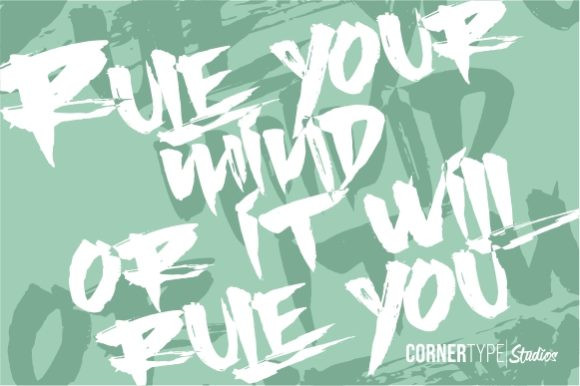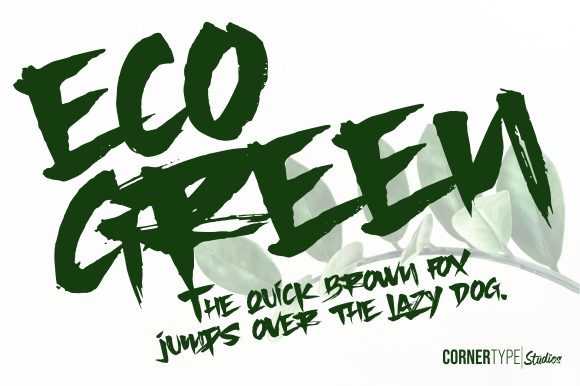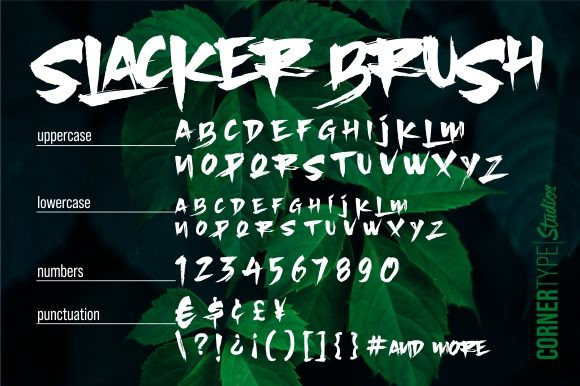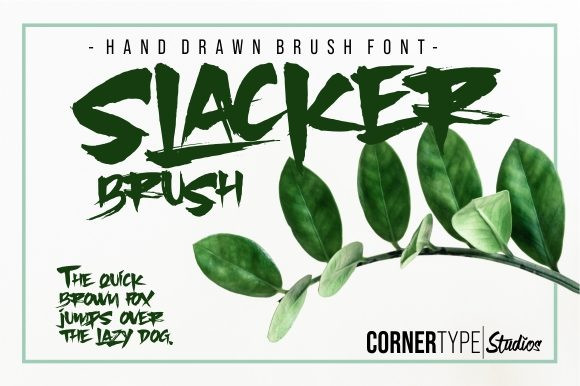
Slacker font
Slacker Font
Slacker is a wild, strong and readable brush font, inspired by street calligraphy. use it to add a urban twist to any design project.